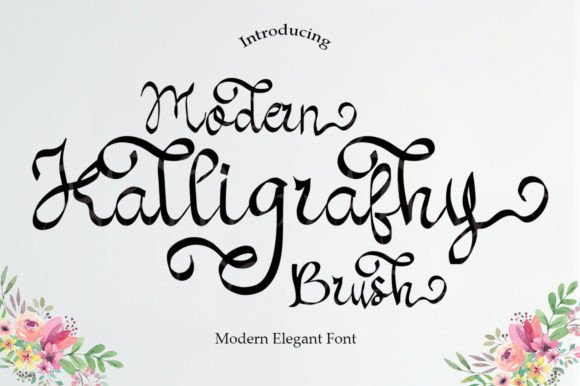
Prepare to be mesmerized by Modern Kalligraphy Brush, a script font that exudes elegance and sophistication. This captivating creation by Shape Studio is the perfect choice for those who seek a touch of refinement for their designs.
Unlike ordinary fonts, Modern Kalligraphy Brush possesses an enchanting allure that will elevate your projects to new heights. Its delicate strokes and flowing curves evoke a sense of grace and fluidity, making it the ideal choice for creating stunning logos, eye-catching invitations, and sophisticated branding materials.
Immerse yourself in the world of modern calligraphy, where each letter becomes a work of art. Modern Kalligraphy Brush is meticulously crafted to embody the essence of this timeless art form, capturing the beauty and precision of handwritten scripts. With its effortless charm, this font will transform your designs into masterpieces that command attention and leave a lasting impression.
Whether you're a seasoned designer or simply seeking to add a touch of elegance to your projects, Modern Kalligraphy Brush is your perfect companion. Its versatility knows no bounds, making it suitable for a wide range of design endeavors. From delicate wedding invitations to bold and impactful marketing materials, this font will effortlessly elevate your creations.
Don't let your designs settle for ordinary – embrace the extraordinary with Modern Kalligraphy Brush. Fall head over heels for its undeniable beauty and experience the joy of creating designs that captivate and inspire. With Modern Kalligraphy Brush, the possibilities are endless – let your imagination soar and watch your projects blossom into works of art.